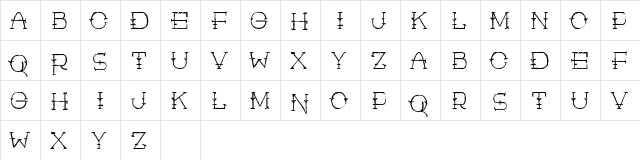
Rustic Man Regular
Design Context for Rustic Man Typeface
Rustic Man is a composed and adaptable typeface that performs quietly and consistently across a wide range of design contexts.